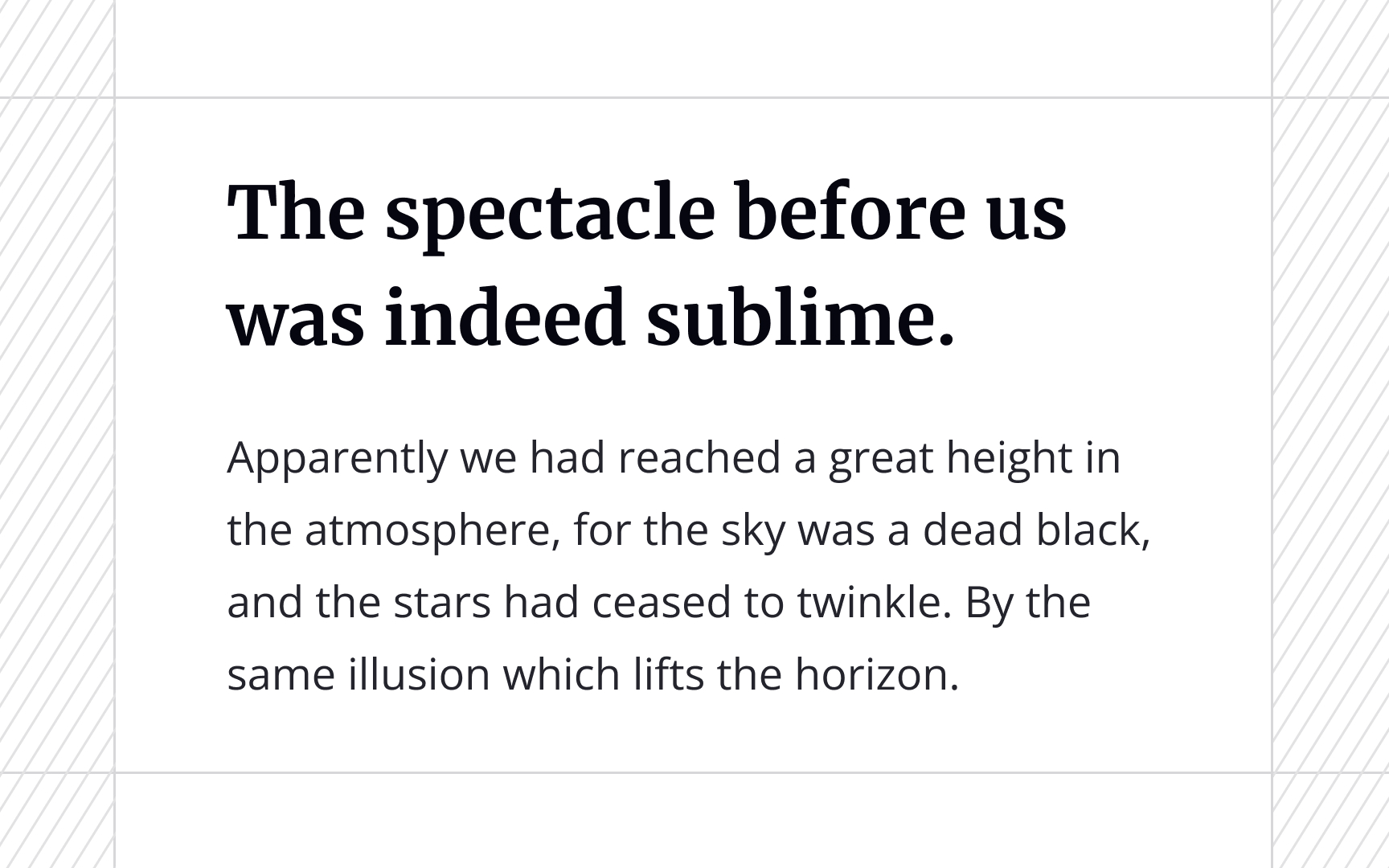
Serif & sans-serif
Serif fonts, characterized by the small decorative lines or strokes attached to the ends of the letterforms, exude a sense of tradition, elegance, and formality. They are often associated with print media and have a long history dating back to the early days of typography. Serif fonts, such as Times New Roman or Georgia, are commonly used for body text in books, newspapers, and magazines due to their legibility and readability in longer passages.
On the other hand, sans-serif fonts, as the name suggests, lack these decorative lines or strokes. They offer a clean and modern aesthetic, often associated with simplicity, minimalism, and a contemporary feel. Sans-serif fonts like Arial, Helvetica, or Gotham are widely used for headlines, subheadings, and other display purposes where a bold and impactful appearance is desired.[1]
When combining serif and sans-serif fonts, the contrast between the two styles can create visual interest and establish a clear hierarchy within your design. Using a serif font for headings and a sans-serif font for body text can help differentiate between different levels of information, making it easier for readers to navigate and comprehend the content. The sharpness and simplicity of sans-serif fonts can provide a complementary backdrop that allows the serif font to stand out and command attention.
Pro Tip: Look for complementary attributes of the chosen serif and sans-serif fonts, such as similar x-height, overall proportions, or letterform shapes to ensure a cohesive and visually pleasing combination.